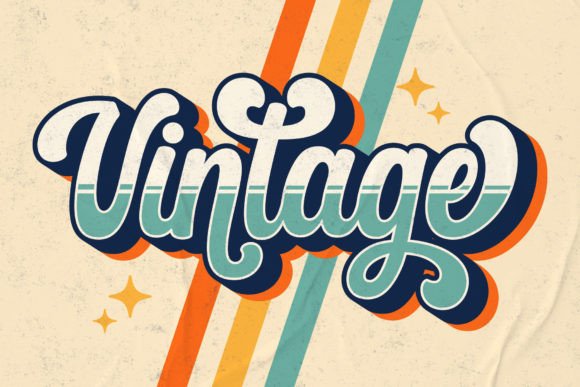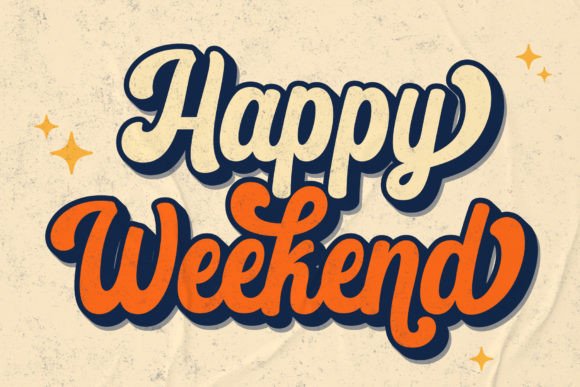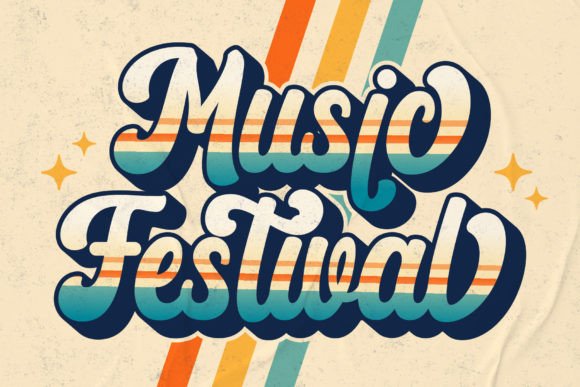
Bold Script Font
About the Bold Script Font
Meet Bold Script Font, a stunning font that brings a touch of elegance and professionalism to any design. Bold Script is a cool, vintage-style script Bold font. Use it to add that special retro and vintage touch to any design idea! It can be used for logos, branding, invitations, stationery, wedding designs, social media posts, and much more!
Bold Script’s strong, vintage style is ideal for headlines, logos, and short impactful text on posters or social media graphics. Its swashes add a touch of retro flair, perfect for branding projects aiming for a nostalgic or vintage aesthetic. However, its decorative nature makes it unsuitable for body text or UI elements where readability is paramount. Long paragraphs set in Bold Script would be visually overwhelming and difficult to read.
This font’s personality is bold and playful, yet retains a touch of classic elegance. Therefore, it pairs well with clean sans-serif fonts like Open Sans or Montserrat for a balanced contrast. For a more vintage-inspired design, consider pairing it with a serif font like Playfair Display or Merriweather. Avoid pairing it with other highly decorative scripts, as this could create visual clutter.
For brands seeking a retro-inspired identity with a touch of personality, Bold Script offers a powerful visual solution. Think vintage clothing brands, handcrafted goods, or event invitations where a statement needs to be made. Its strength lies in short, memorable applications where its unique character can shine.